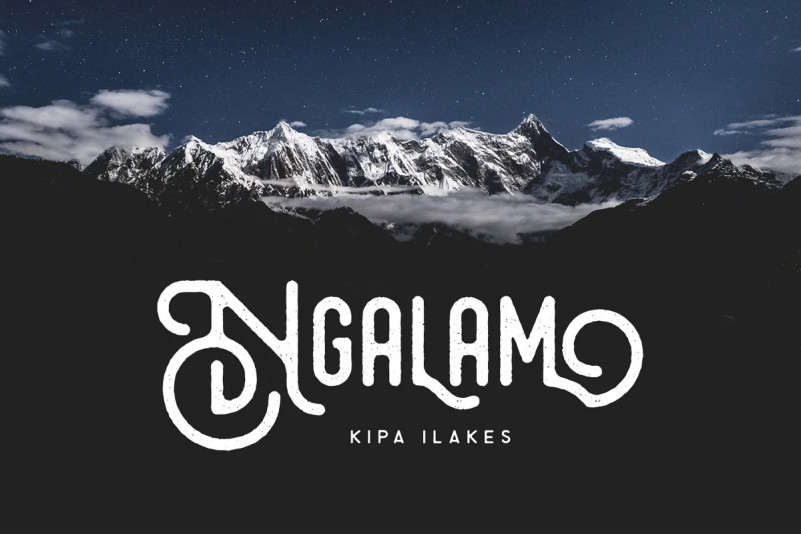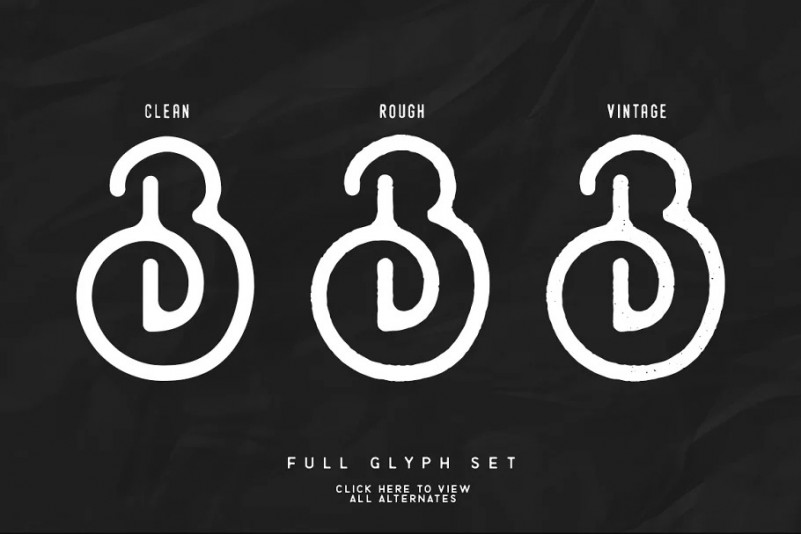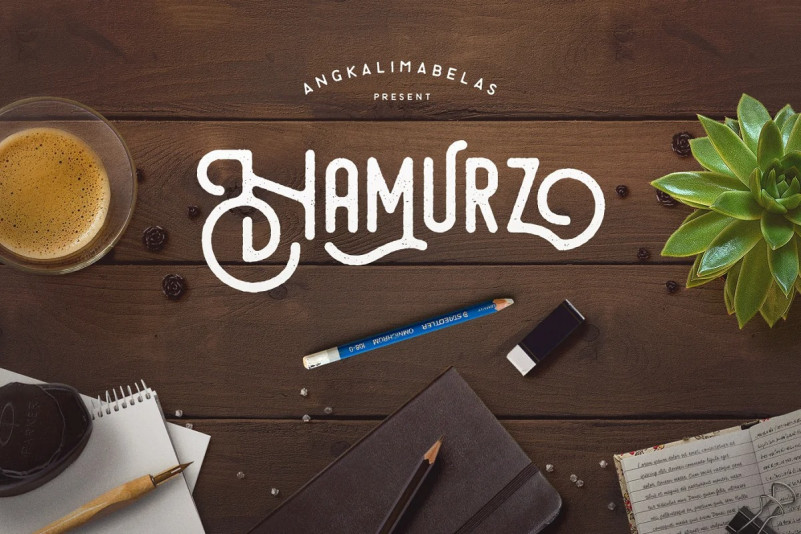
Hamurz Font
Opentype features ready with Stylistic Set, Contextual alternates. With Opentype features you can applied to logos, product, display, clothing, quotes and many more. You can applied to all typography with mix and match pairs of letters to fit your own designs.